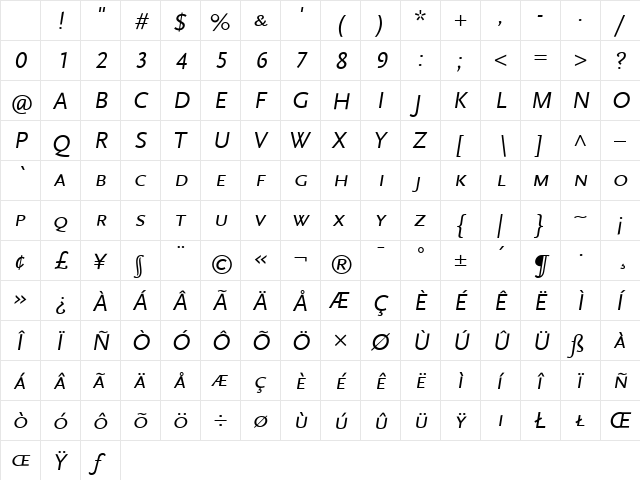
Complete ADScalaSansCaps Medium Italic glyph index. Displaying only characters natively supported by ADScalaSansCaps Medium Italic font.
ADScalaSansCaps is a composed and adaptable typeface that performs quietly and consistently across a wide range of design contexts. The slanted form adds forward momentum and visual energy.